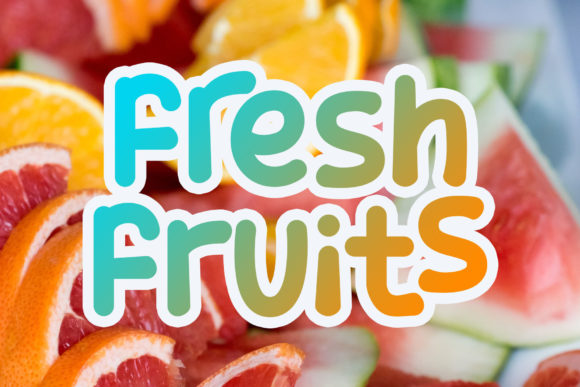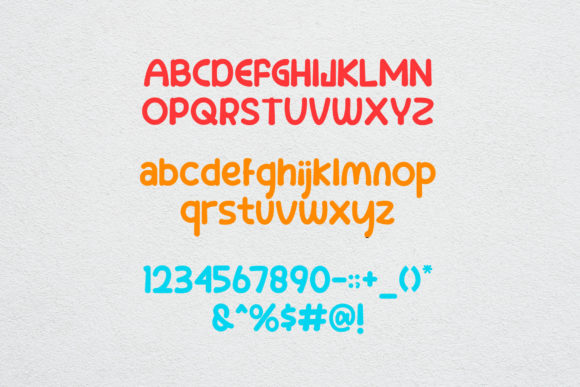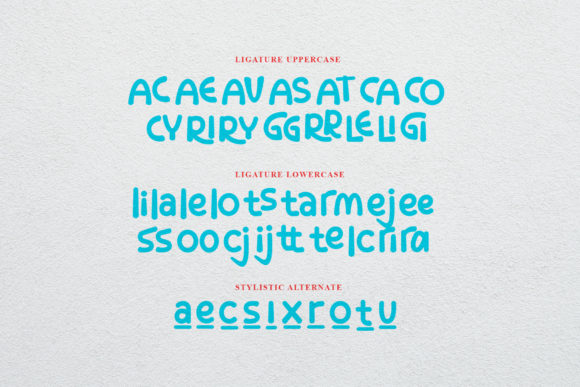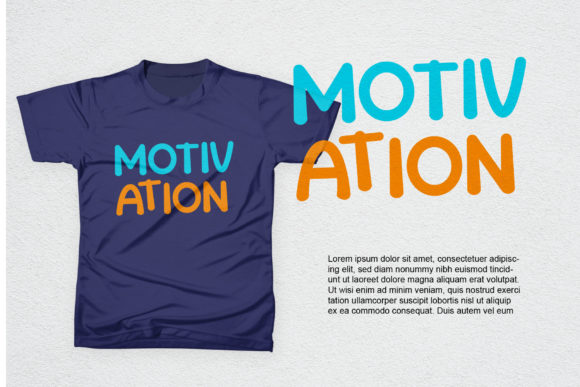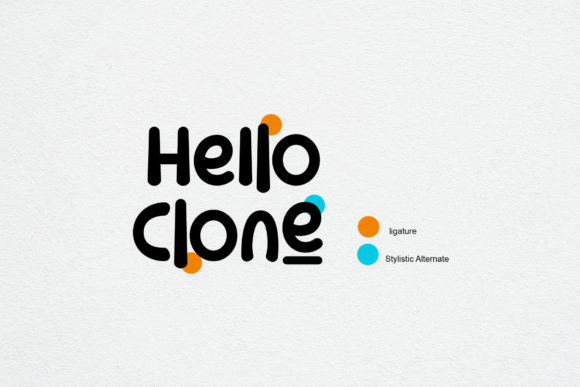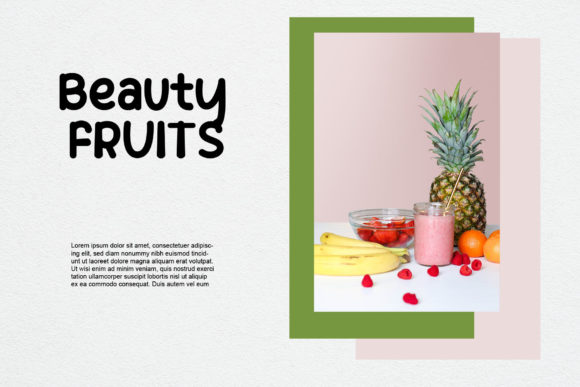
Introducing Clone Font: The Ultimate Display Font for Children-Themed Designs
Are you a designer or crafter looking for a font that can add a touch of playfulness and cuteness to your designs? Look no further than Clone Font! This adorable display font is perfect for creating children-themed designs that are sure to delight kids and adults alike.
What Makes Clone Font So Special?
Clone Font is a PUA (Private Use Area) encoded font, which means that it comes with a range of amazing glyphs and ligatures that are easy to access. This font is designed to be user-friendly, making it simple for designers and crafters to get creative with their designs. With Clone Font, you can add a touch of whimsy and fun to your designs, making them perfect for children’s products, such as toys, books, and clothing.
Key Features of Clone Font
- PUA Encoded: Clone Font is PUA encoded, making it easy to access all the glyphs and ligatures.
- Cute and Playful: This font is designed to be fun and playful, making it perfect for children-themed designs.
- Display Font: Clone Font is a display font, making it perfect for headlines, titles, and other display text.
Why Choose Clone Font?
There are many fonts available that are suitable for children-themed designs, but Clone Font stands out from the crowd. Here are just a few reasons why:
- Unique and Quirky: Clone Font has a unique and quirky style that is sure to grab attention.
- Versatile: This font can be used for a range of design projects, from children’s products to party decorations.
- High-Quality: Clone Font is a high-quality font that is designed to look great in any design.
How to Use Clone Font in Your Designs
Using Clone Font in your designs is easy! Here are a few tips to get you started:
- Pair with Bright Colors: Clone Font looks amazing when paired with bright, bold colors. Try pairing it with colors like pink, blue, and yellow to create a fun and playful design.
- Use for Headlines and Titles: This font is perfect for headlines and titles, making it a great choice for children’s books, posters, and other display materials.
- Experiment with Glyphs and Ligatures: With Clone Font, you can access a range of glyphs and ligatures that can add an extra touch of whimsy to your designs.
If you’re a designer or crafter looking to get the most out of Clone Font, here are a few tips to keep in mind:
- Keep it Simple: While Clone Font is a playful font, it’s still best to keep your designs simple and easy to read.
- Be Creative: Don’t be afraid to experiment with different colors, glyphs, and ligatures to create a unique design.
- Use for a Range of Projects: Clone Font is versatile enough to be used for a range of projects, from children’s products to party decorations.
Clone Font is a cute and playful display font that is perfect for children-themed designs. With its PUA encoding, range of glyphs and ligatures, and user-friendly design, this font is a must-have for designers and crafters. Whether you’re creating children’s products, party decorations, or other designs, Clone Font is sure to add a touch of whimsy and fun. So why wait? Download Clone Font today and start creating your own fun and playful designs!